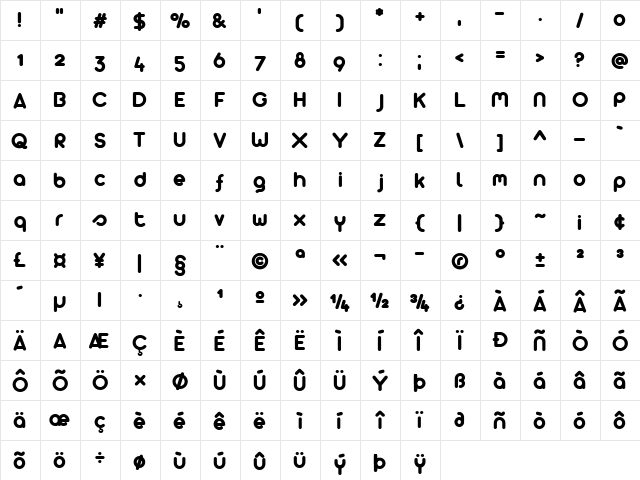
Arista 2.0 Alternate Regular
| Foundry | studio kmzero |
| Designer | Francesco Canovaro |
Design Context for Arista 2.0 Alternate Typeface
Arista 2.0 Alternate takes a measured approach to typography — its balanced proportions and neutral character make it a reliable workhorse for both digital and print work.